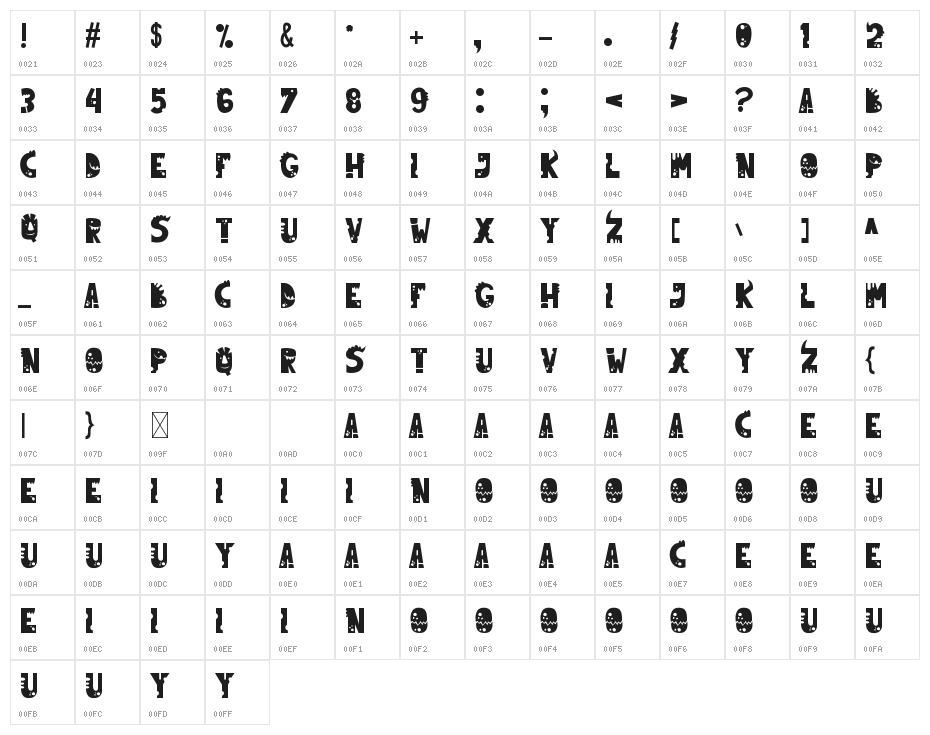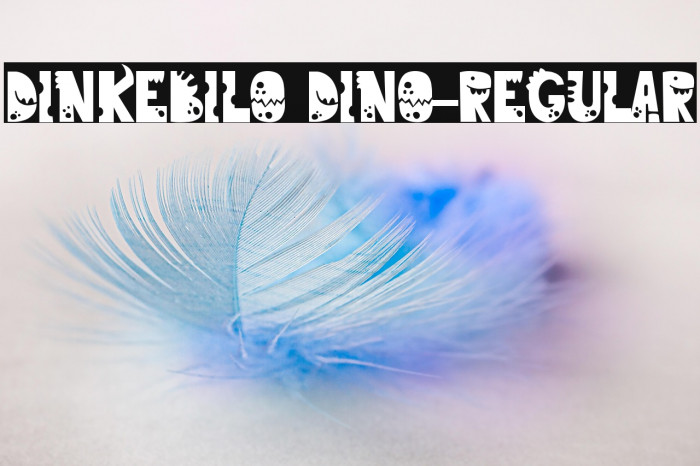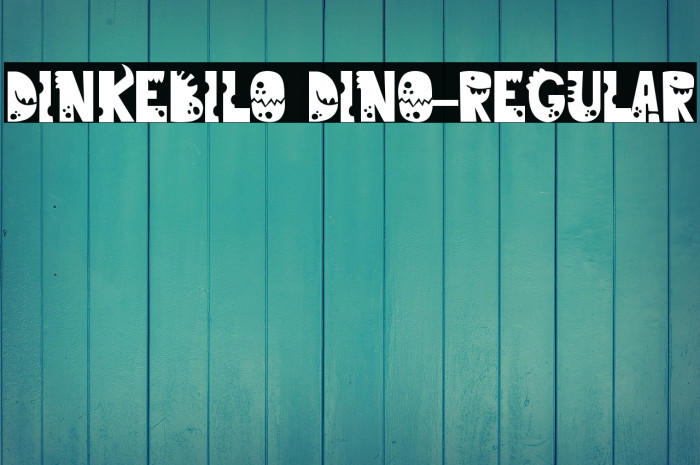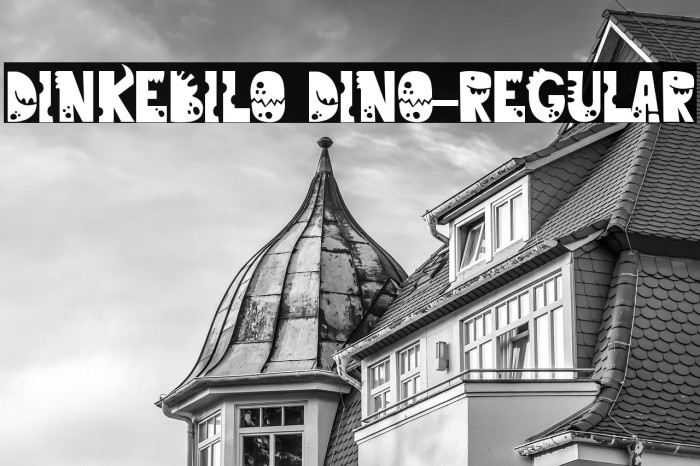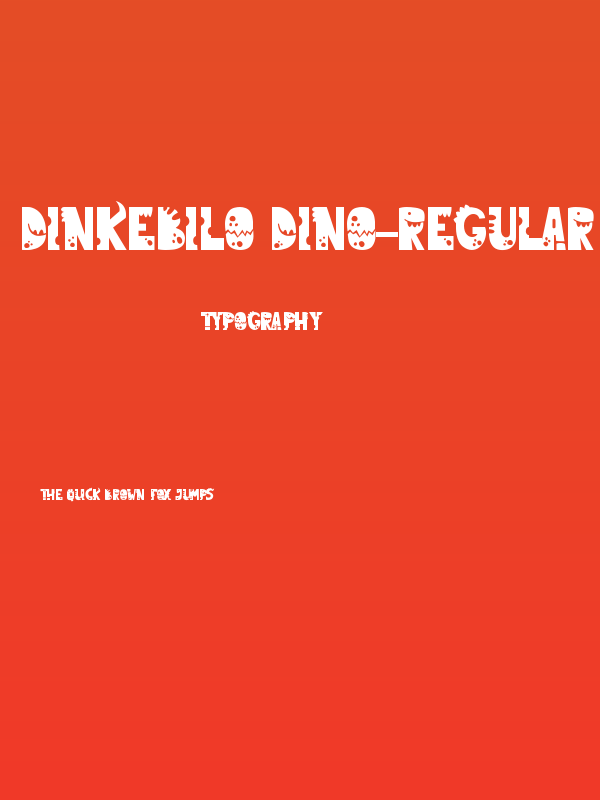
Dinkebilo Dino-Regular Font
Dinkebilo Dino-Regular Description
This playful and whimsical font features bold, chunky letters with unique dinosaur-themed embellishments. Each character is creatively designed with elements like spikes, teeth, and eyes, giving the font a lively and animated appearance. The uppercase and lowercase letters maintain a consistent style, while the numbers and special characters are equally imaginative. The font's thick strokes and decorative details make it stand out, perfect for capturing attention in creative projects.
Overall StylePlayful, Whimsical, Decorative
Proposed ProjectsIdeal for children's books, playful branding, themed party invitations, and educational materials.